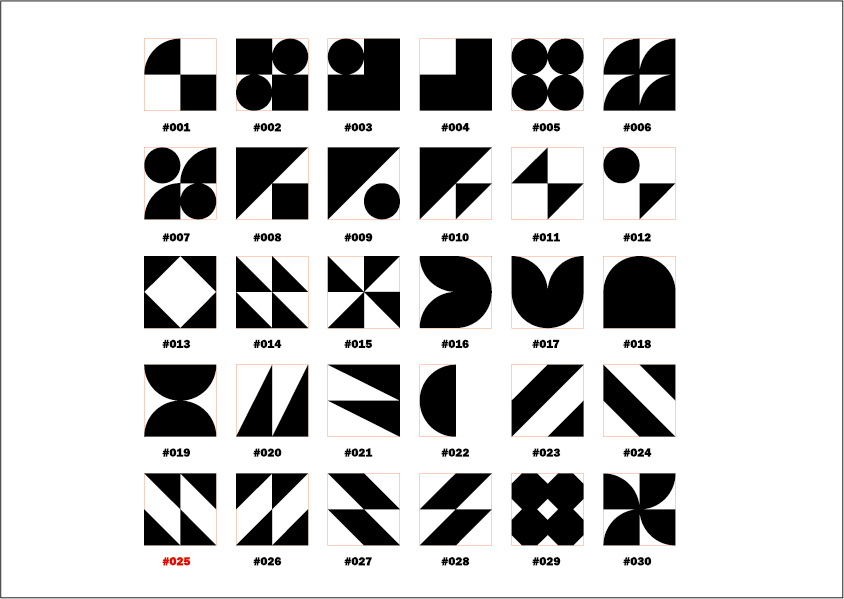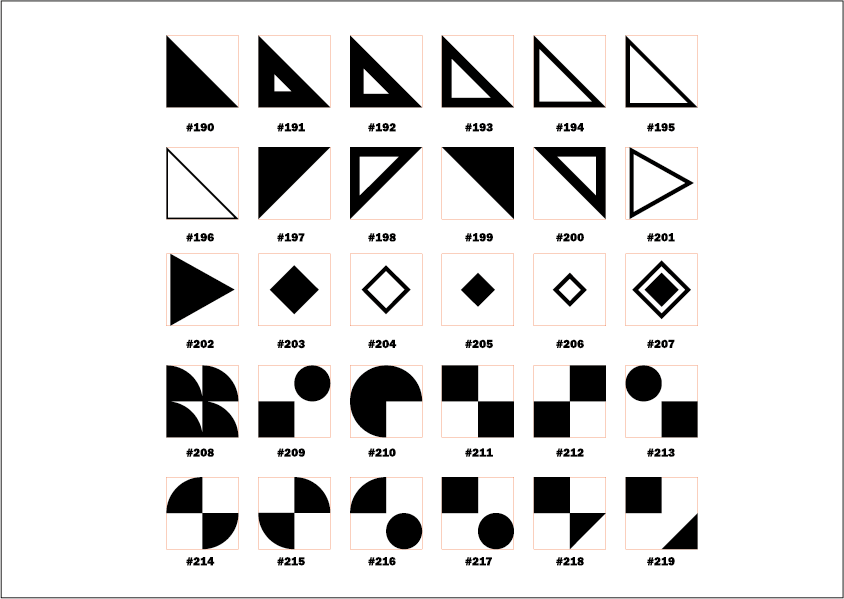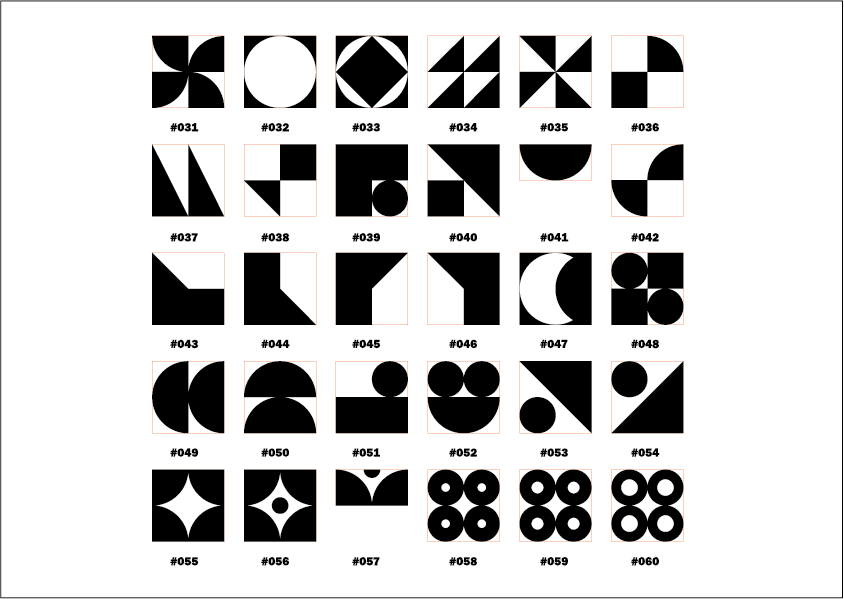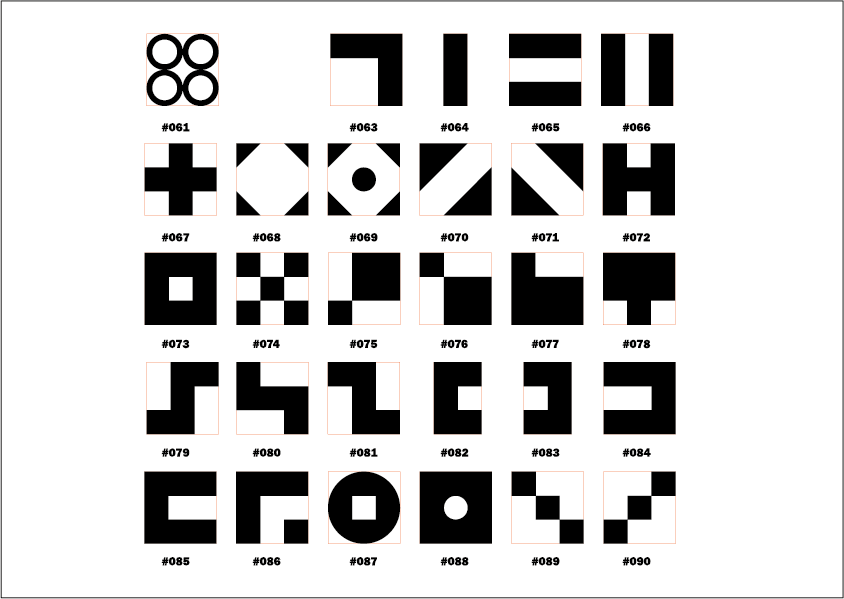
16 Line - 8 Blocks - Form Pattern Starter Set
This Form Pattern Starter Set includes 8 blocks in 16 Line size (67.7mm x 67.7mm).
Designed by Donald Tarallo and made exclusively by Type High Design, FormPattern is is an easy to use set of shapes with endless possibilities. The blocks are cut with no side bearings so the shapes will touch and naturally flow into patterns.
Formpattern is ideal for large, flat-bed presses to create posters or large format prints. The blocks are 16line x 16line squares which are machined from type high, end-grain beech. The printing surface is sanded smooth and sealed with shellac so the ink wipes off cleanly. Ideal for making patterned lines, areas, and frames. Many of the shapes can also be used as letters or can be combined to create them. The density of the patterns can be adjusted with spacing.